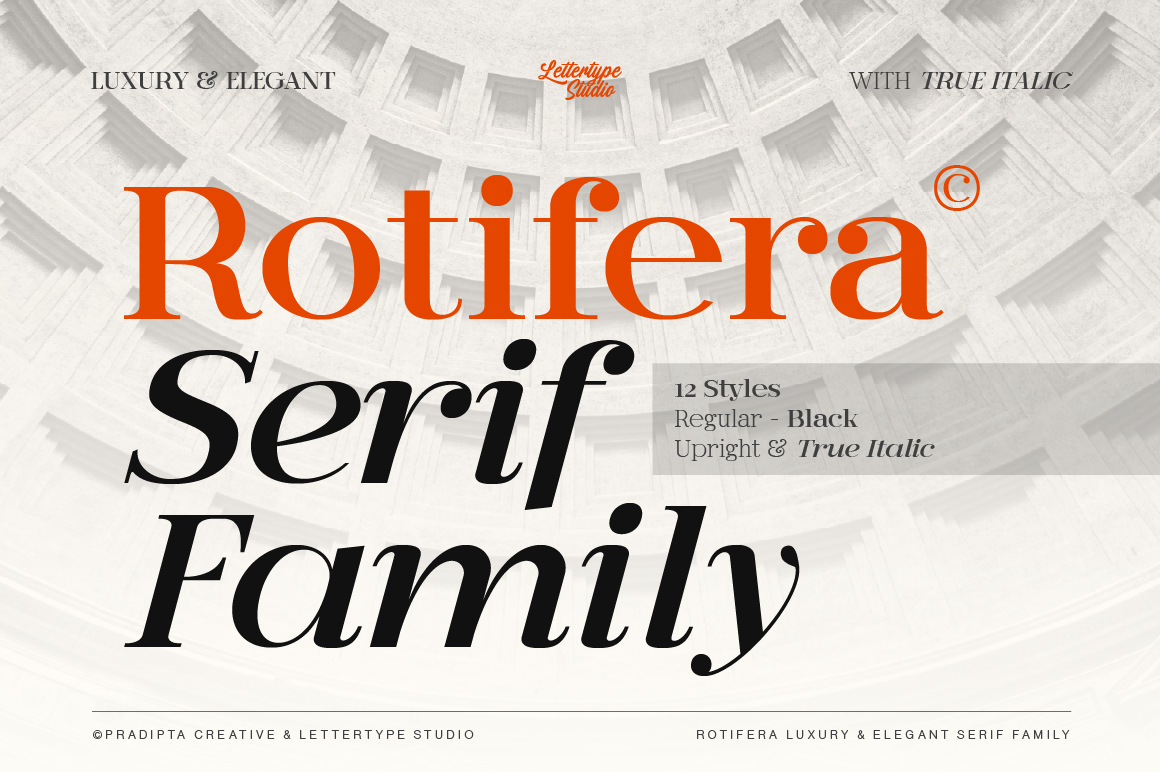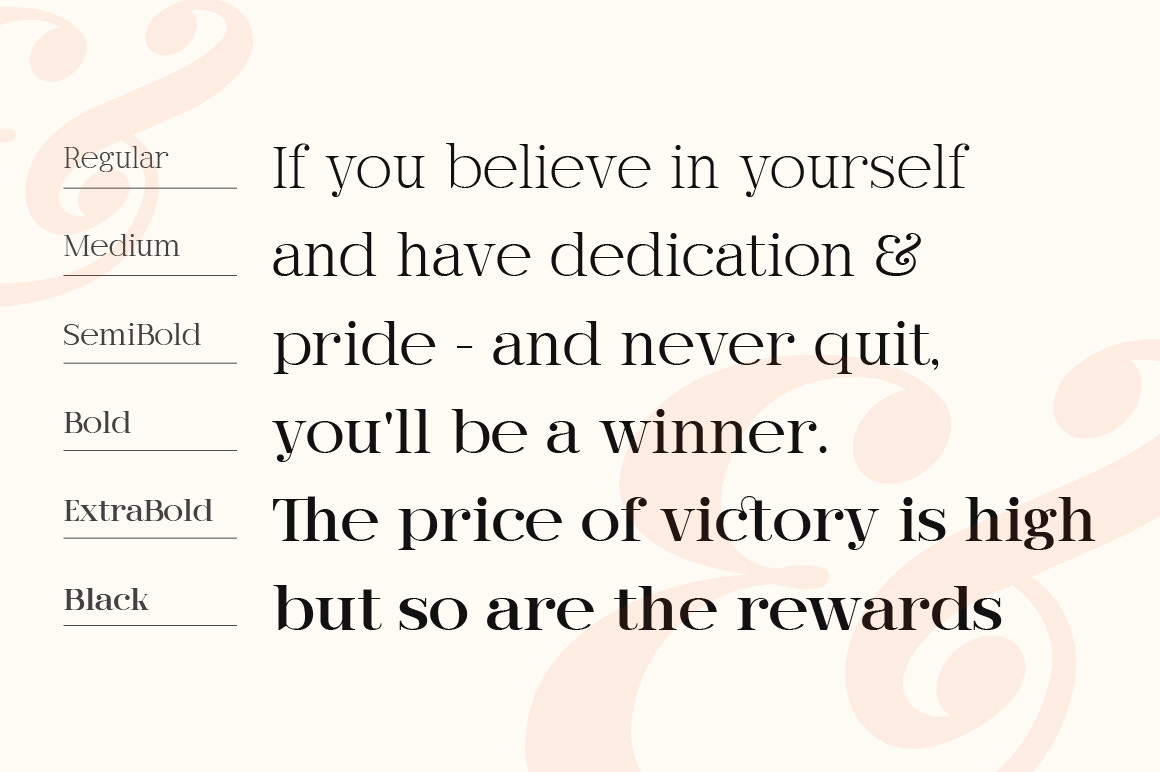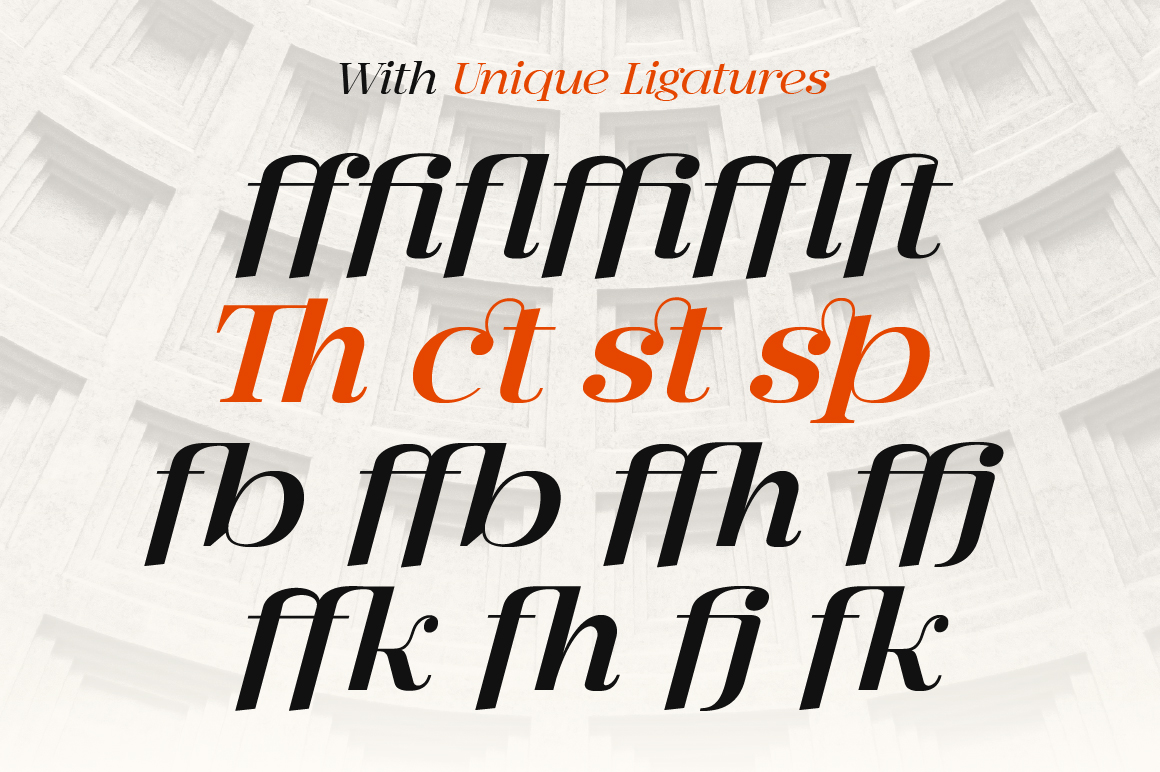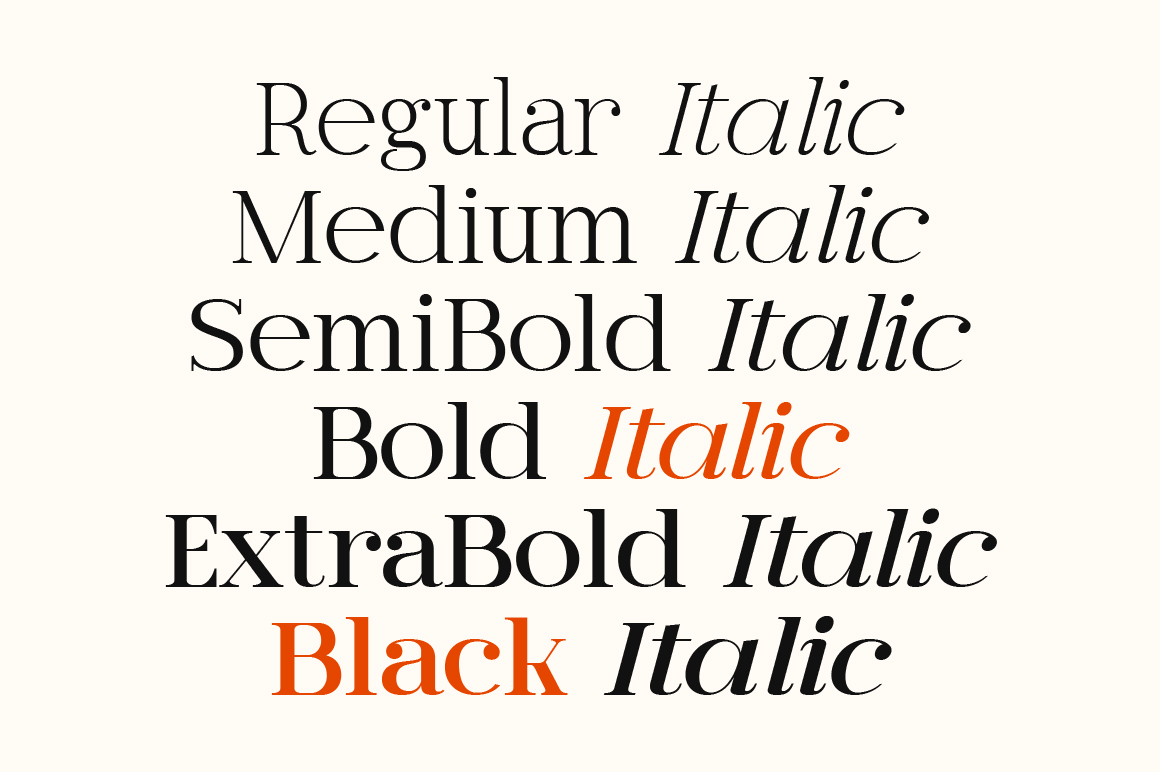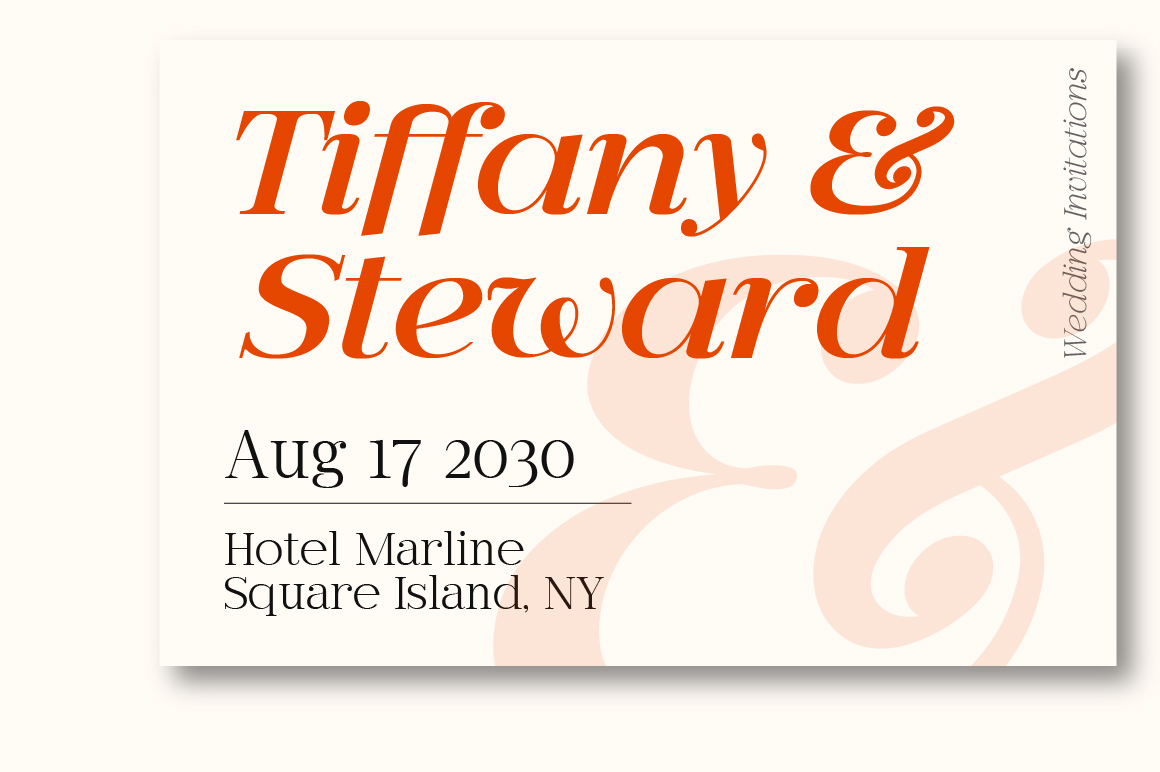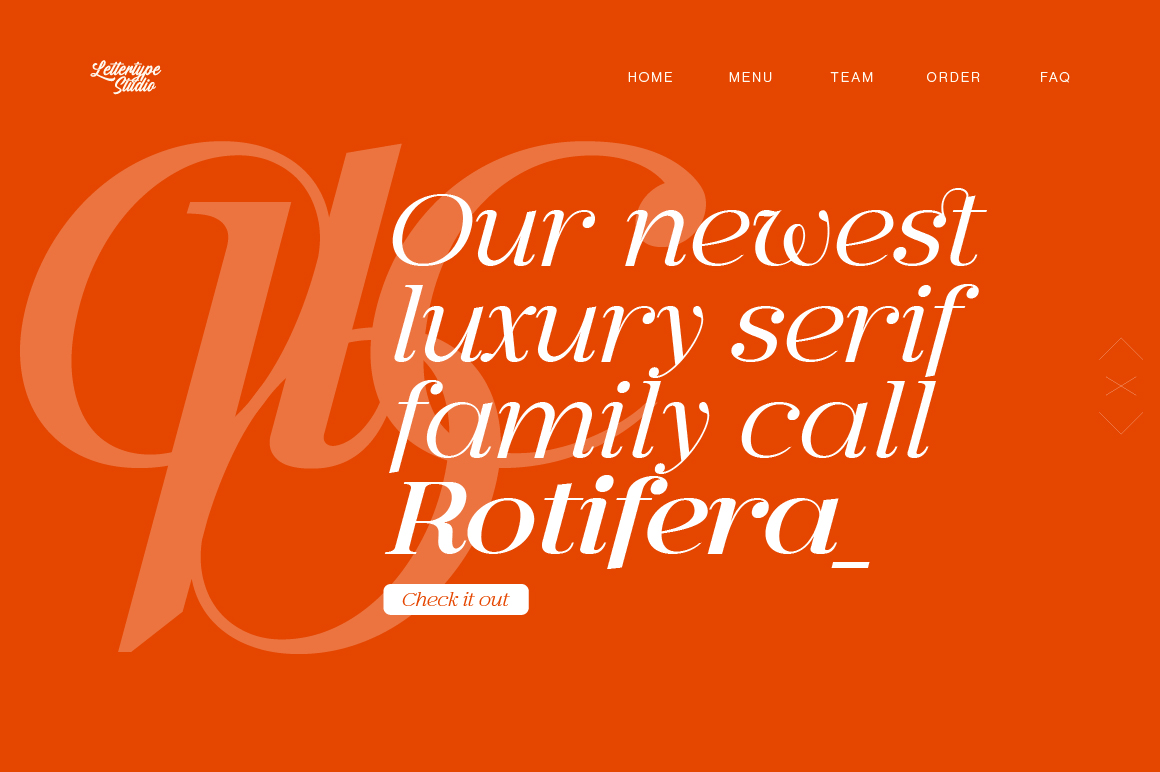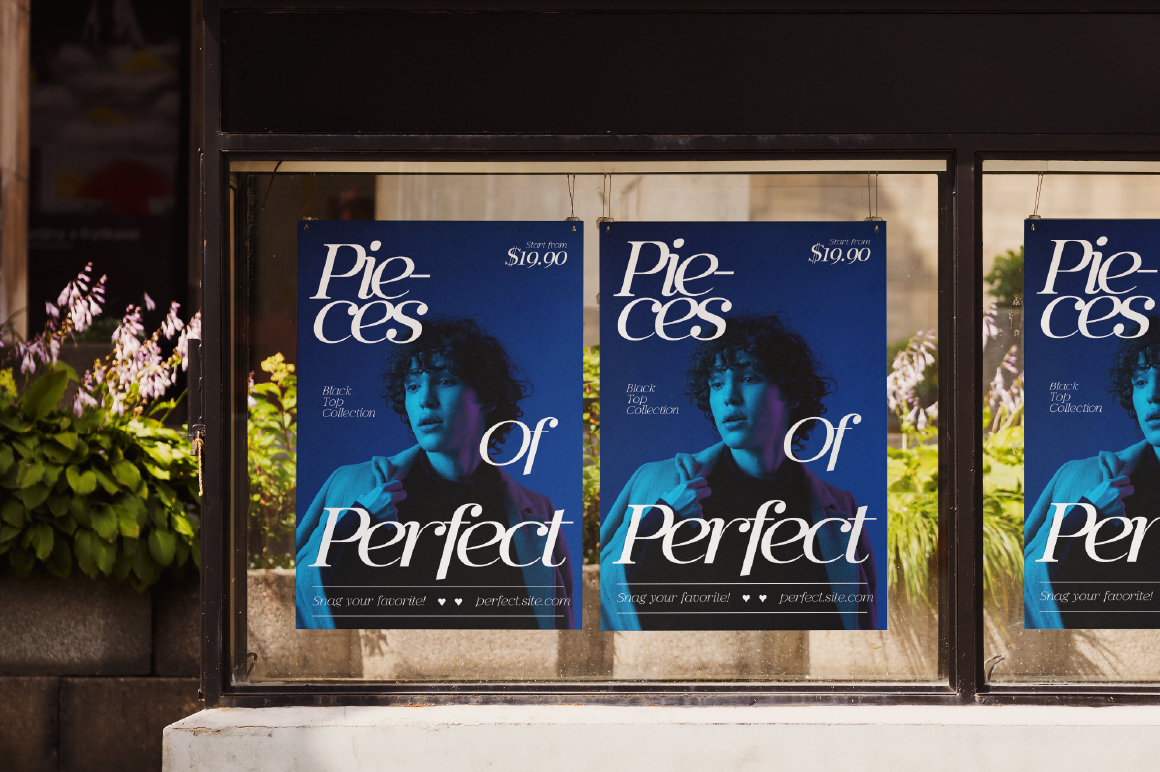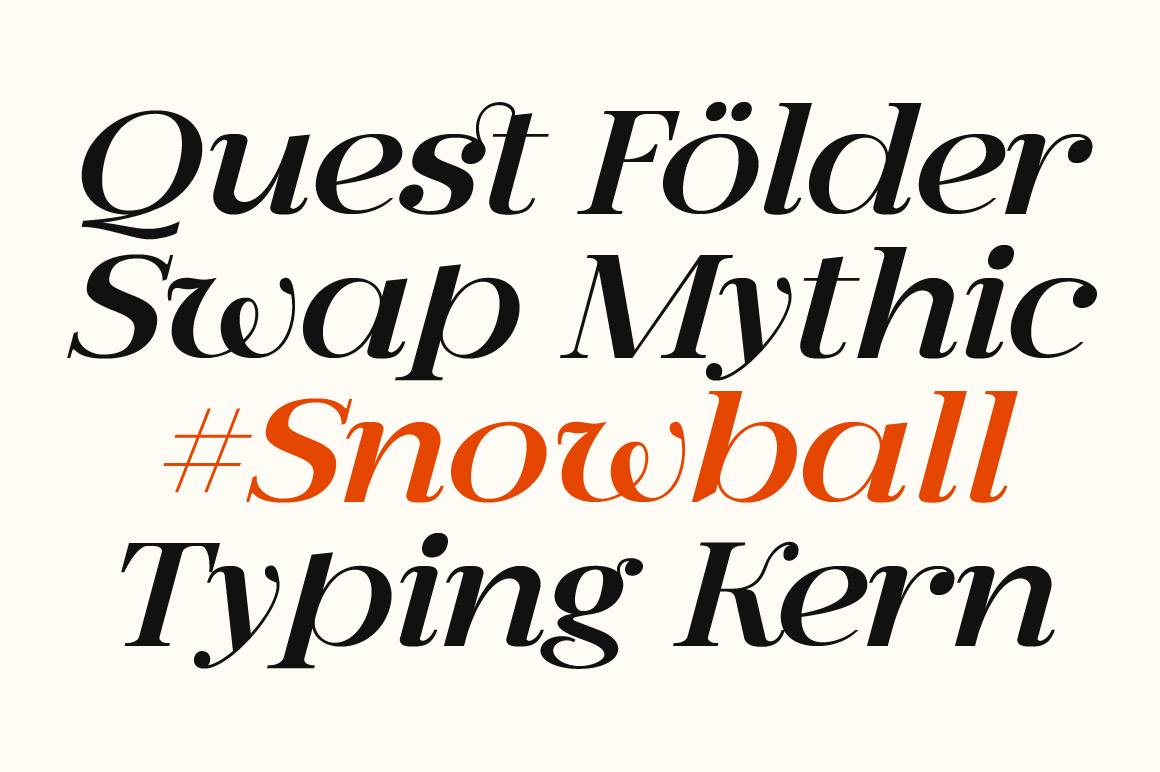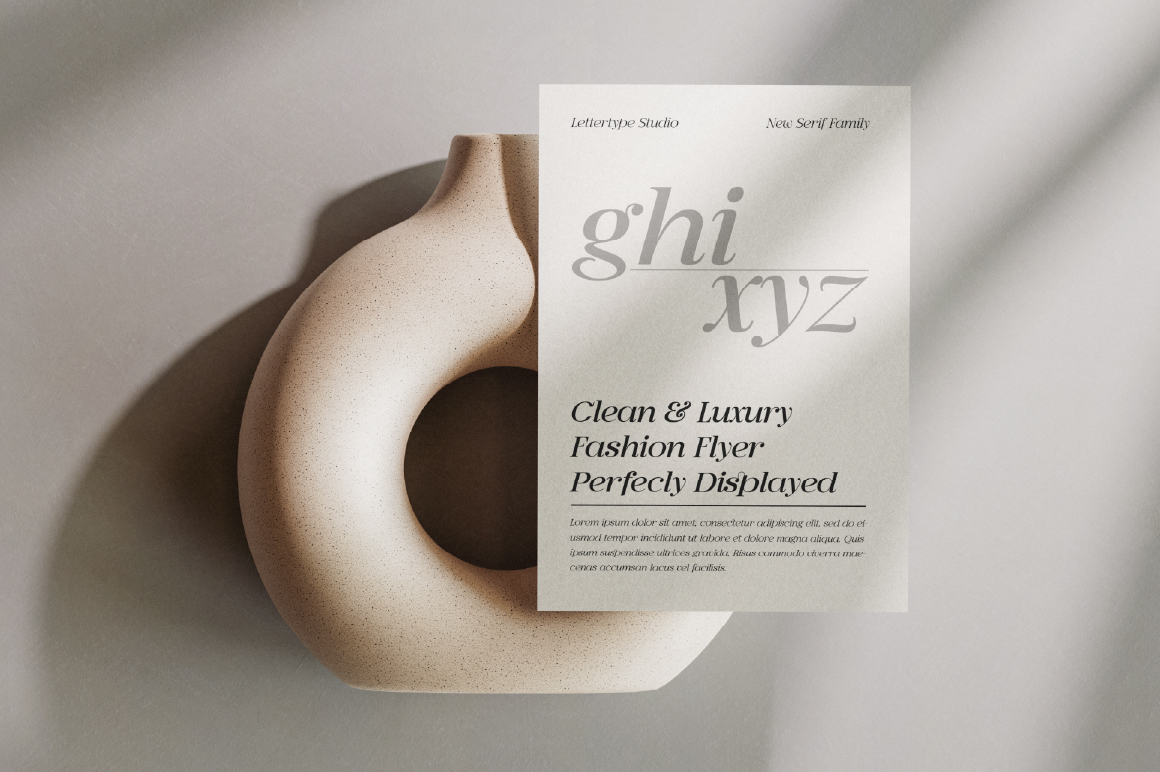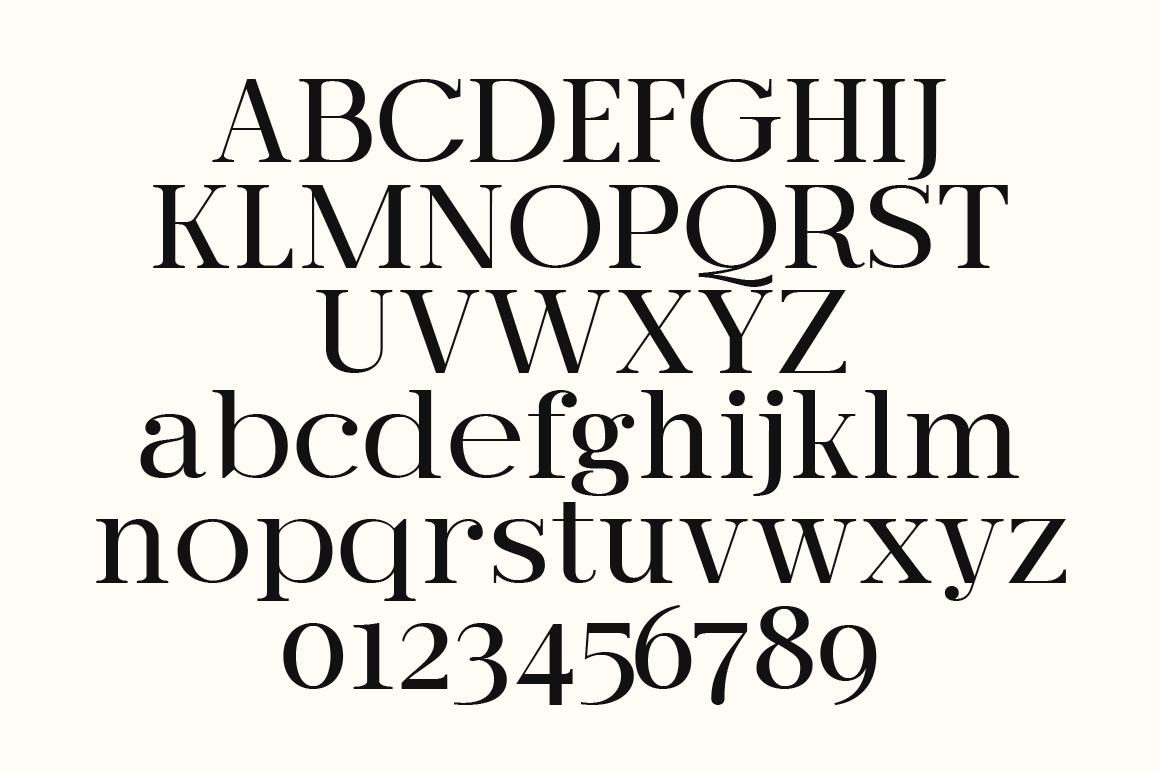
Rotifera - Regular
Rotifera - Italic
Rotifera - Medium
Rotifera - Medium Italic
Rotifera - SemiBold
Rotifera - SemiBold Italic
Rotifera - Bold
Rotifera - Bold Italic
Rotifera - ExtraBold
Rotifera - ExtraBold Italic
Rotifera - Black
Rotifera - Black Italic
Rotifera is a Luxurious and elegant high-contrast serif font with a classic style inspired by 18th-century typography. It is perfect for sophisticated branding, editorial design, web typography, and much more. These fonts offer timeless appeal with clean lines, geometric shapes, and luxurious details, ensuring your projects stand out with elegance and style. They are ideal for designers seeking versatility and refinement in their typography choices.
Rotifera, offering multiple styles from regular to black with true italic and multilingual support, elevates your digital and print creations with a unique modern and vintage flair. This font works in large and small sizes and includes 12 styles upright and italic. It features 18+ unique and stunning ligatures, 260+ language support, and multilingual support.
Rotifear Features:
• 12 Styles
• Upright & Italic
• 462 Glyphs Total
• 260+ Languages Supports
• Luxury branding, packaging & high-end product design
• Editorial layouts, magazines & classic book covers
• Fashion campaigns, advertising & elegant posters
• Wedding invitations, stationery & premium identity
• Websites & print materials with timeless sophistication